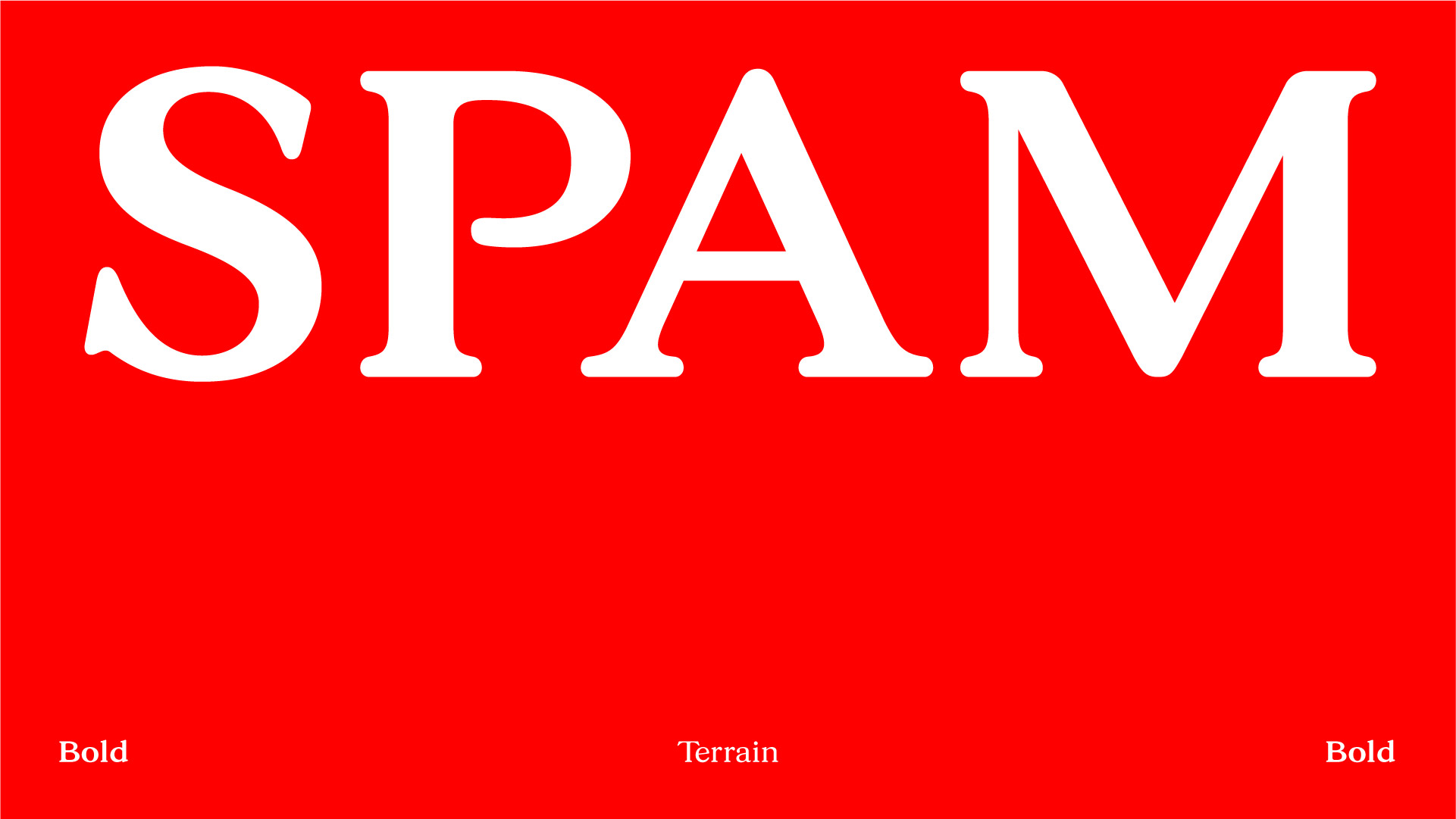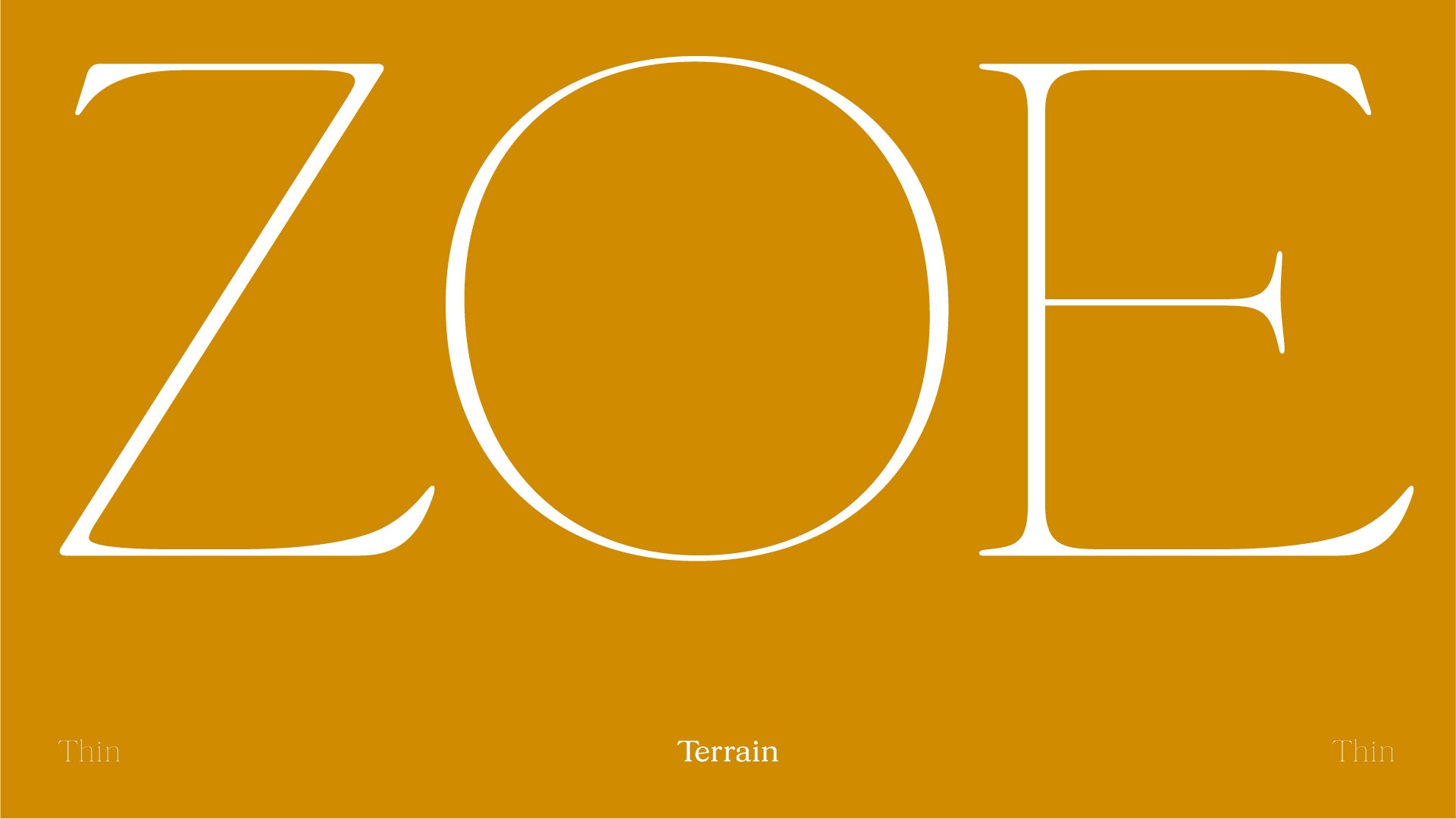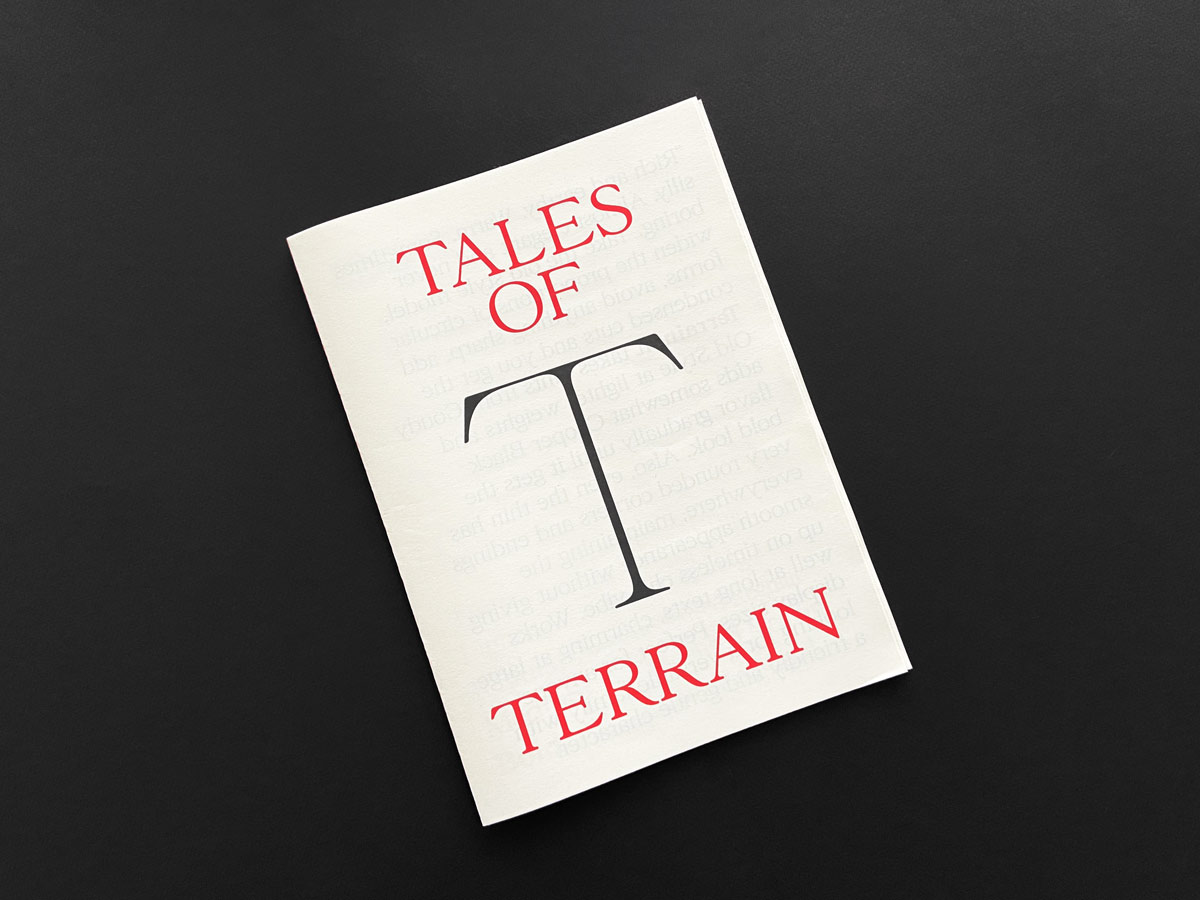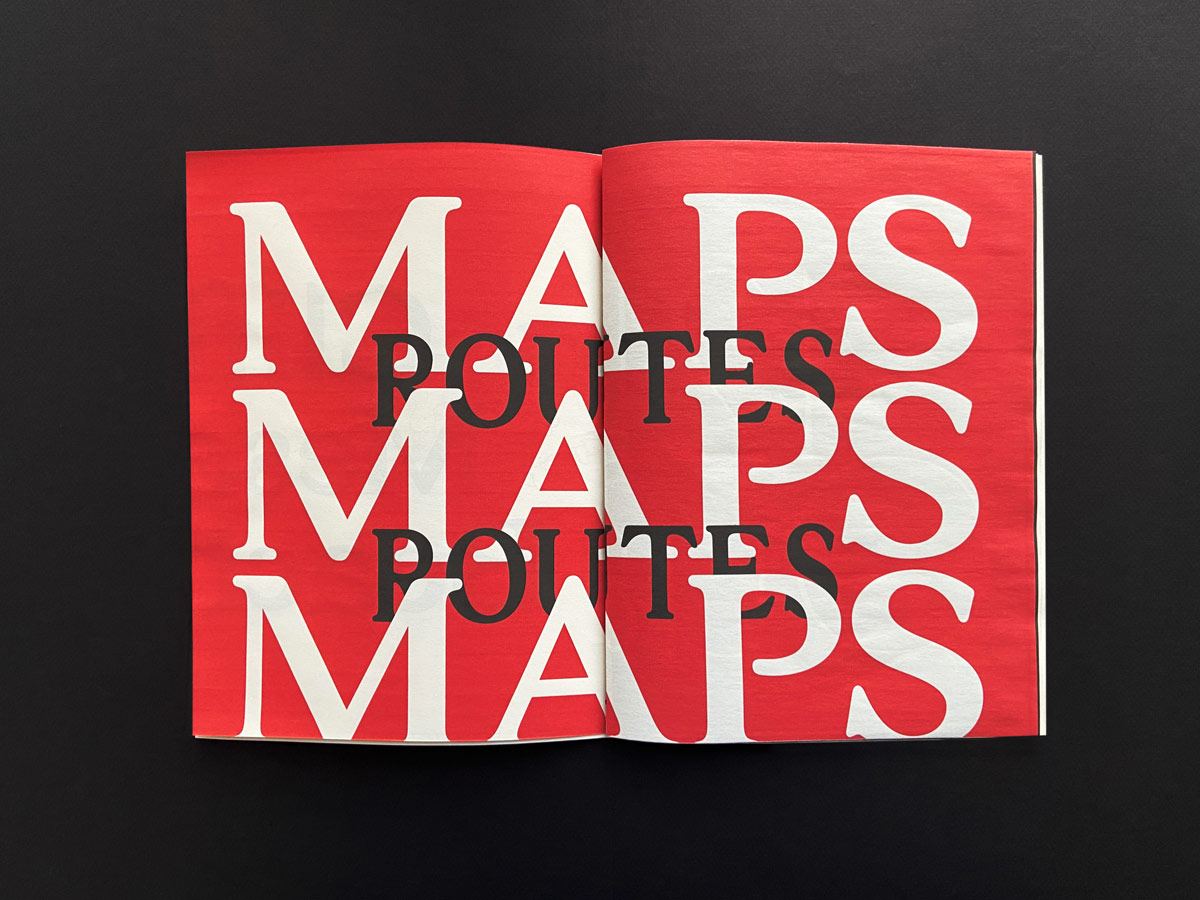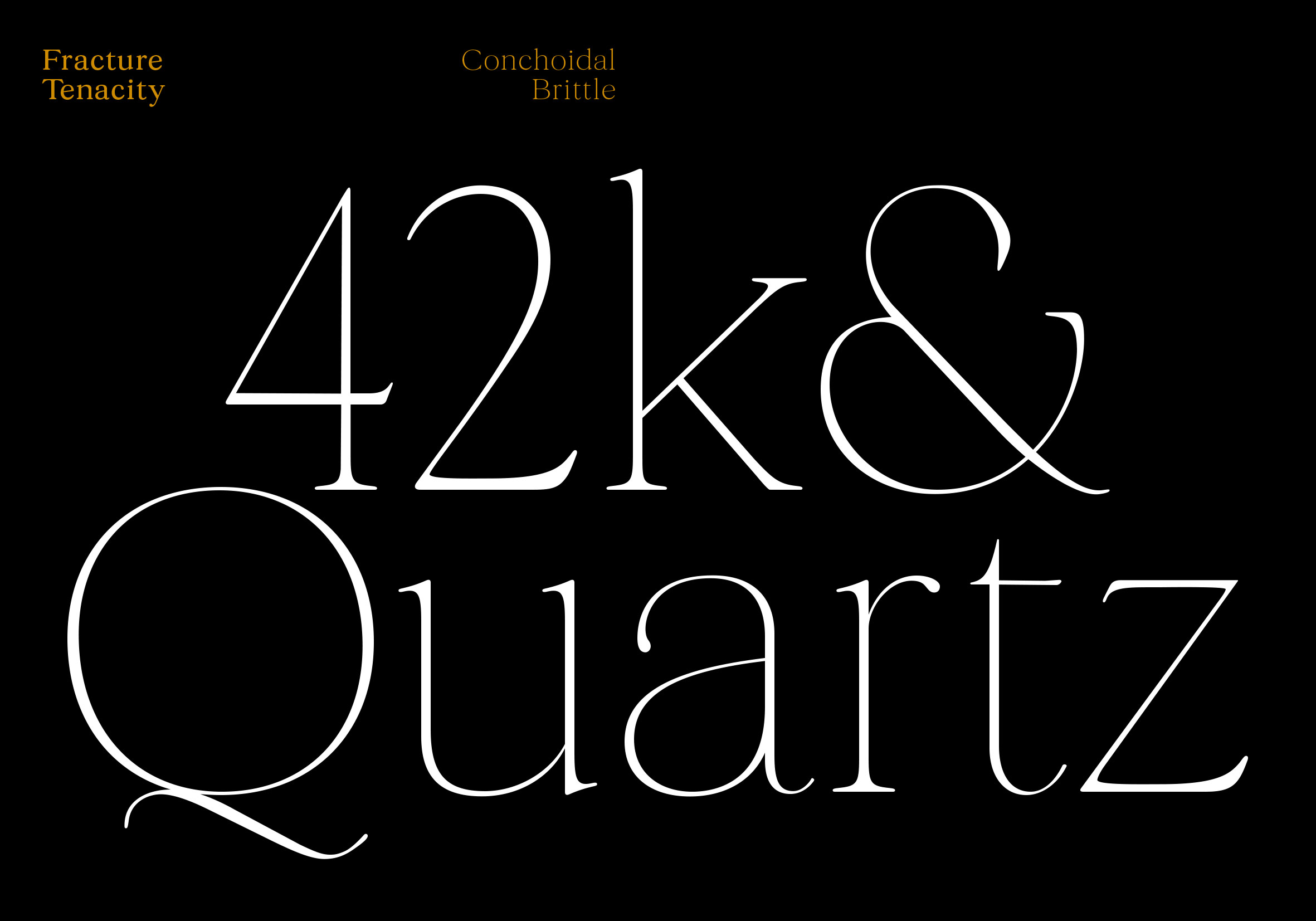
Rich and earthy. Warm. Sometimes silly. Almost elegant and never boring. Take the old style model, widen the proportions of circular forms, avoid anything sharp, add condensed cuts and you get the Terrain. It takes hints from Goudy Old Style at lighter weights and adds somewhat Cooper Black flavor gradually until it gets the bold look. Also, even the thin has very rounded corners and endings everywhere, maintaining the smooth appearance without giving up on timeless chic vibe. Works well at long texts, charming at large display sizes. Perfect for anyone looking for a versatile family with a friendly and gentle character.
Doğukan Karapınar
Terrain
Doğukan Karapınar